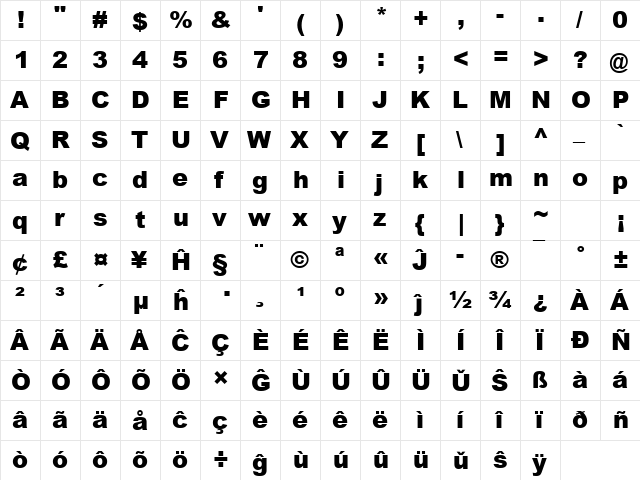
Arial MT Black Eo Regular Font Preview
Arial MT Black Eo Regular
Arial MT Black Eo Regular Font Details
Design Context for Arial MT Black Eo Typeface
Arial MT Black Eo is a composed and adaptable typeface that performs quietly and consistently across a wide range of design contexts.
Pro Tip: Pair Arial MT Black Eo with a font of contrasting weight or personality to build a more expressive typographic hierarchy.